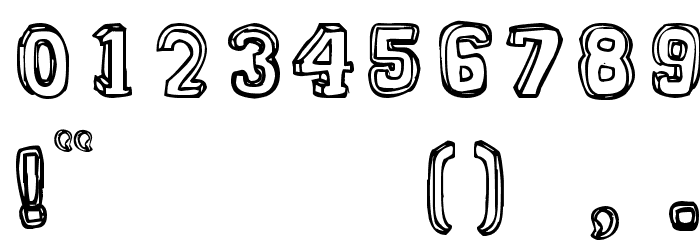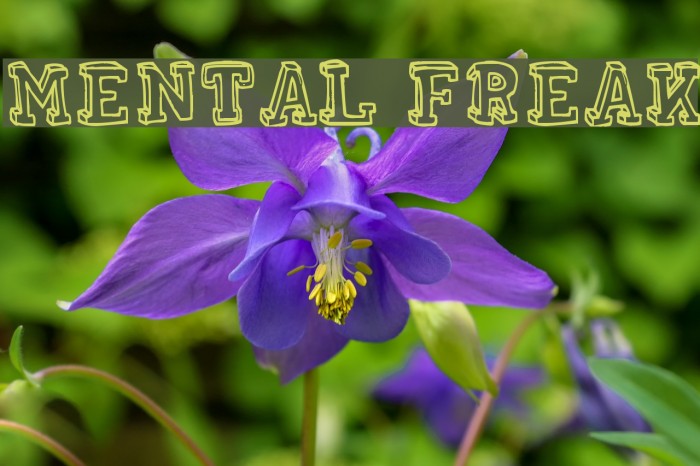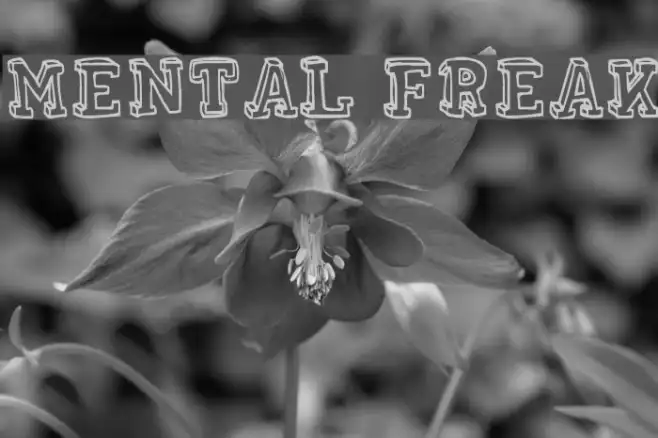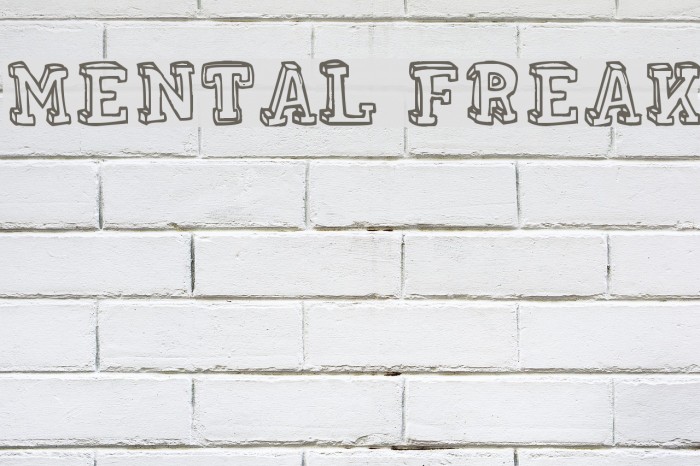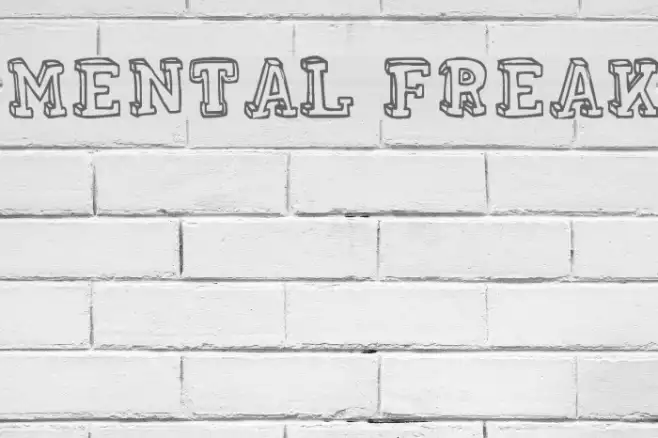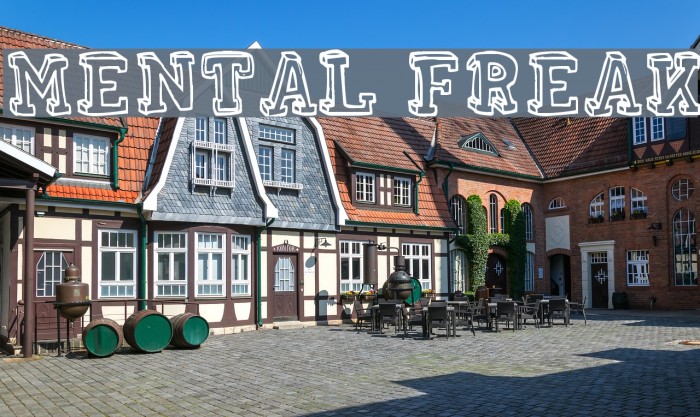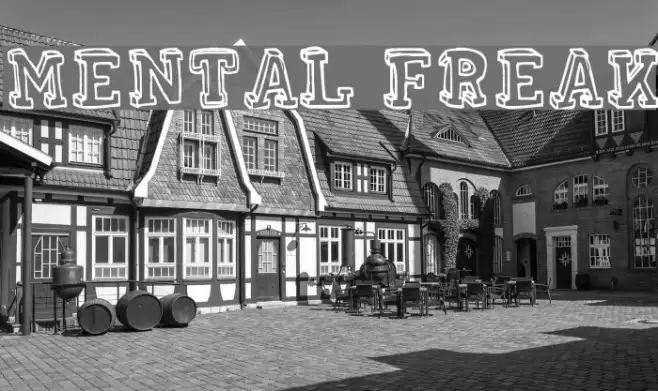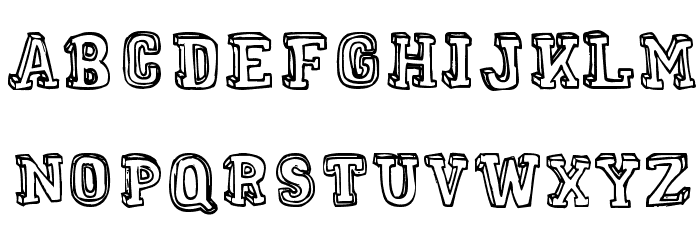
MENTAL FREAK Font
This font features a bold, decorative style with a playful and slightly chaotic appearance. Each character is outlined with a thick, uneven stroke, giving it a hand-drawn, sketch-like quality. The letters are uppercase and have a three-dimensional effect, as if they are popping out of the page. The numbers and special characters follow the same design, maintaining consistency throughout the set. This font's unique style makes it stand out, making it ideal for projects that require a fun and eye-catching typeface.
A bold, decorative font with a hand-drawn, sketch-like appearance.
• Proposed Projects: Ideal for posters, comic book titles, children's books, and playful branding.
• Category: Decorative/Display
• Overall Style: Decorative
• Use Case: Headlines, Logos